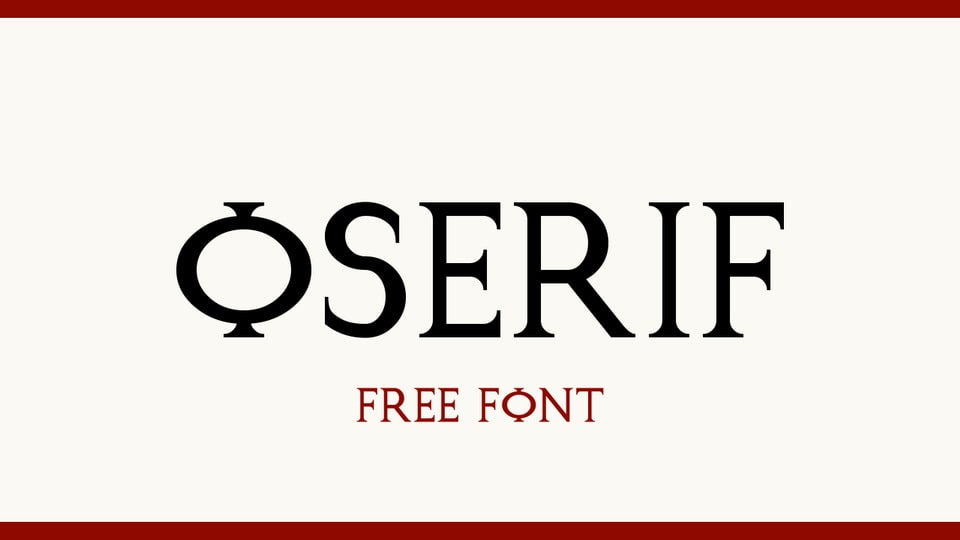
Download OSerif font, a display typeface that pays homage to the timeless beauty and sophistication of Roman capitals. OSerif font is designed for projects that demand a sense of tradition and classical elegance.